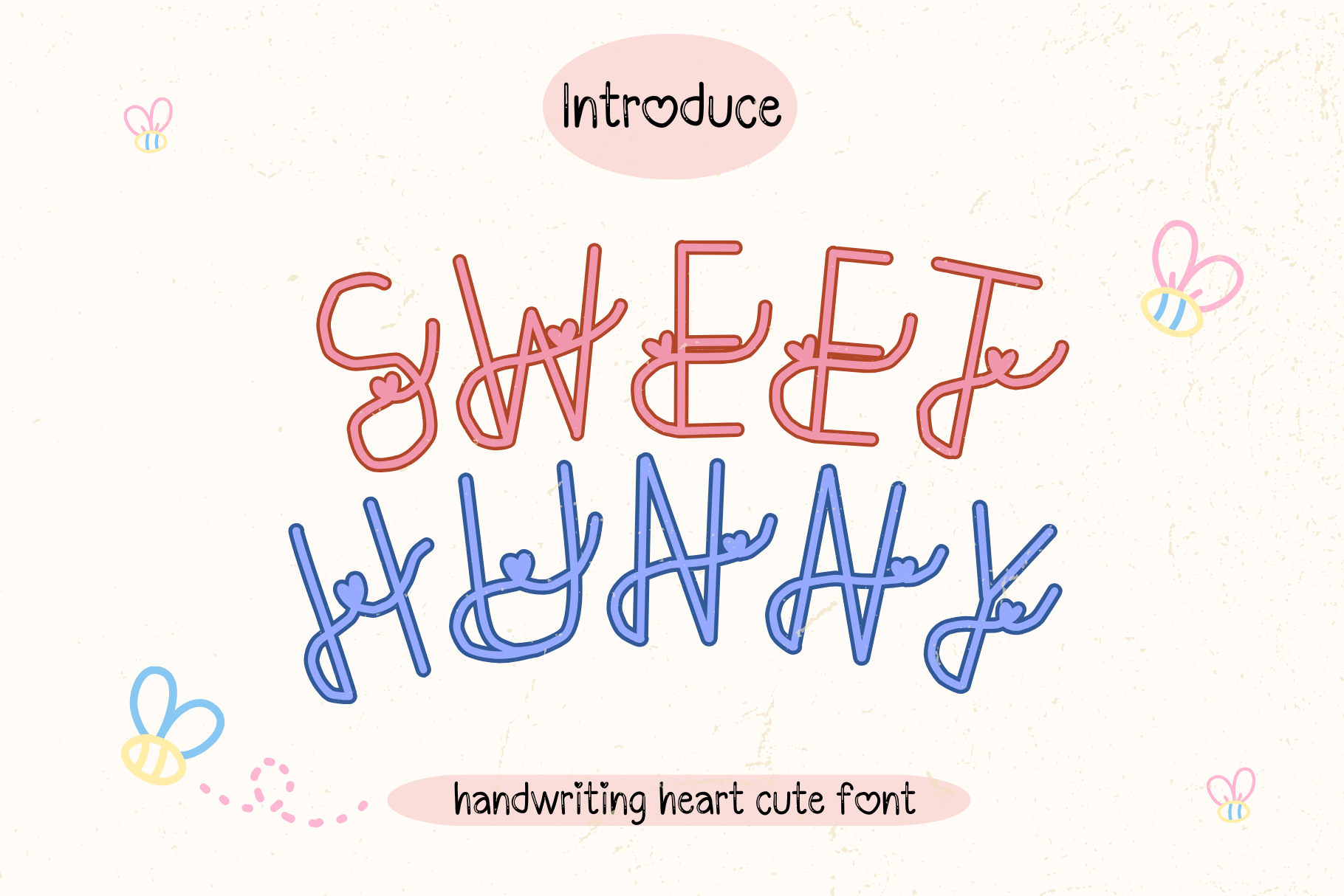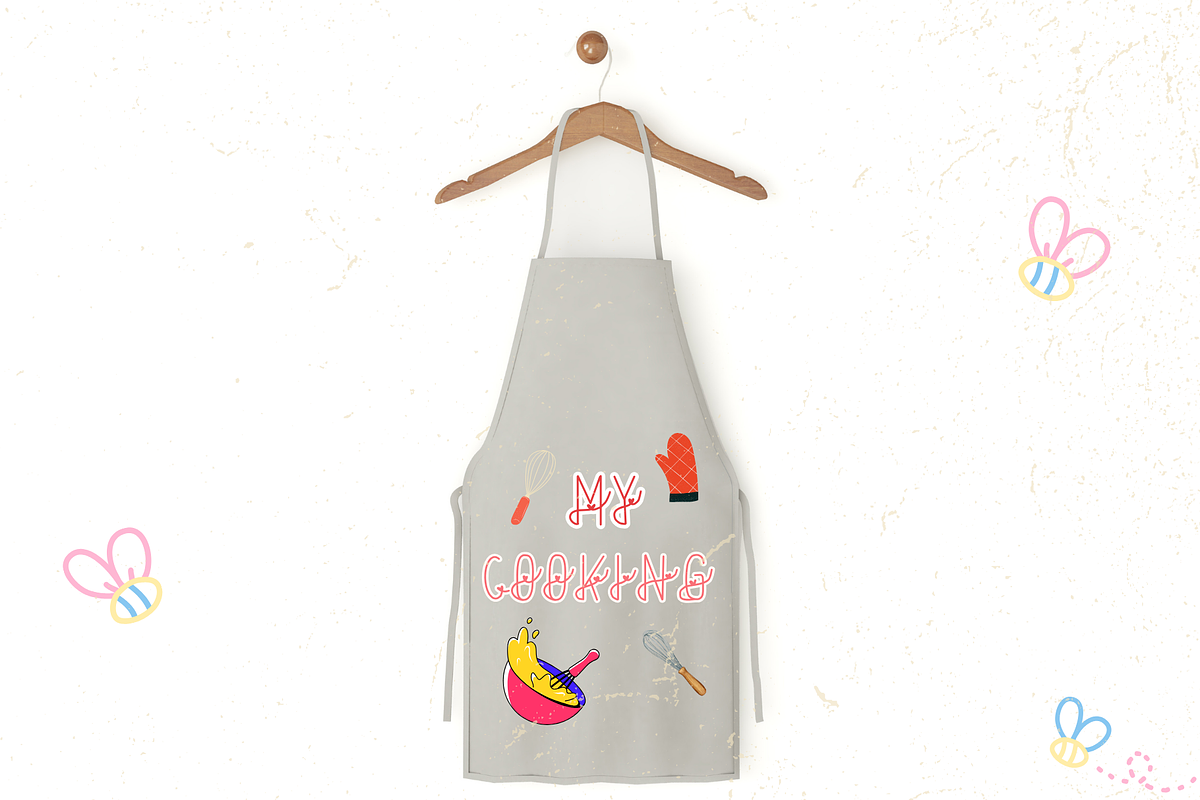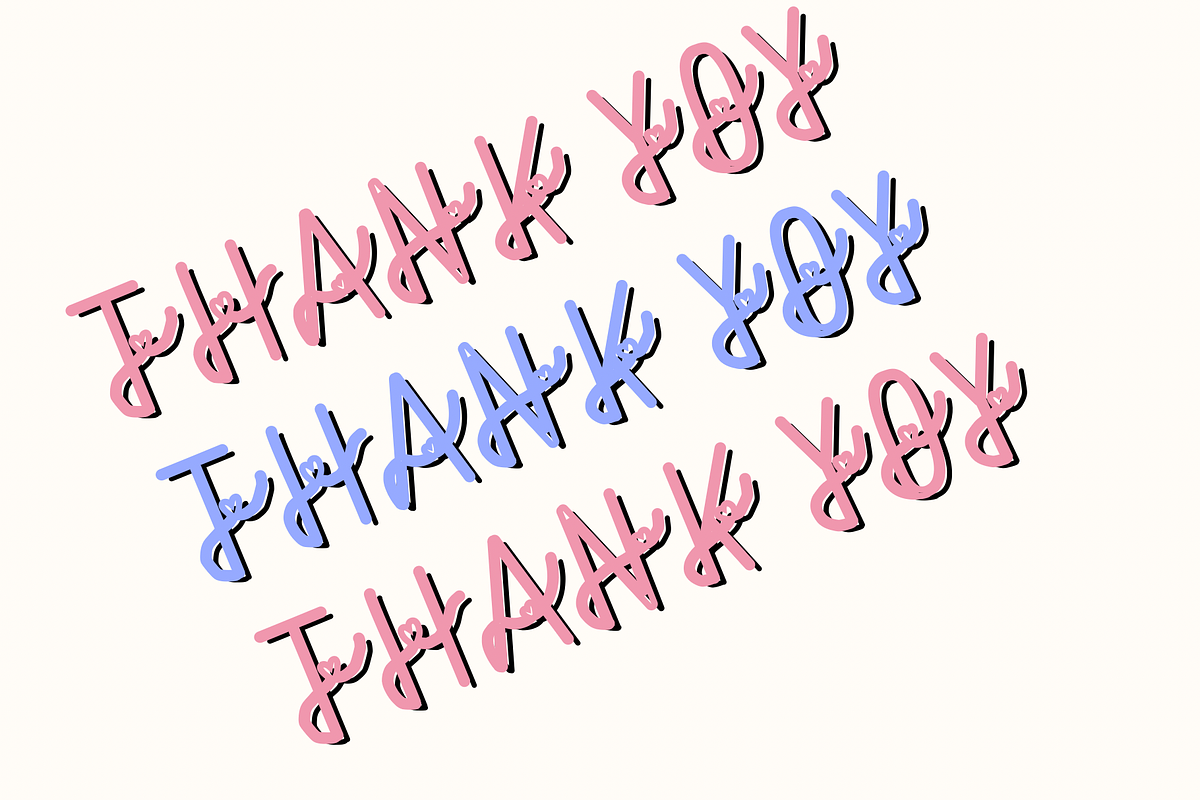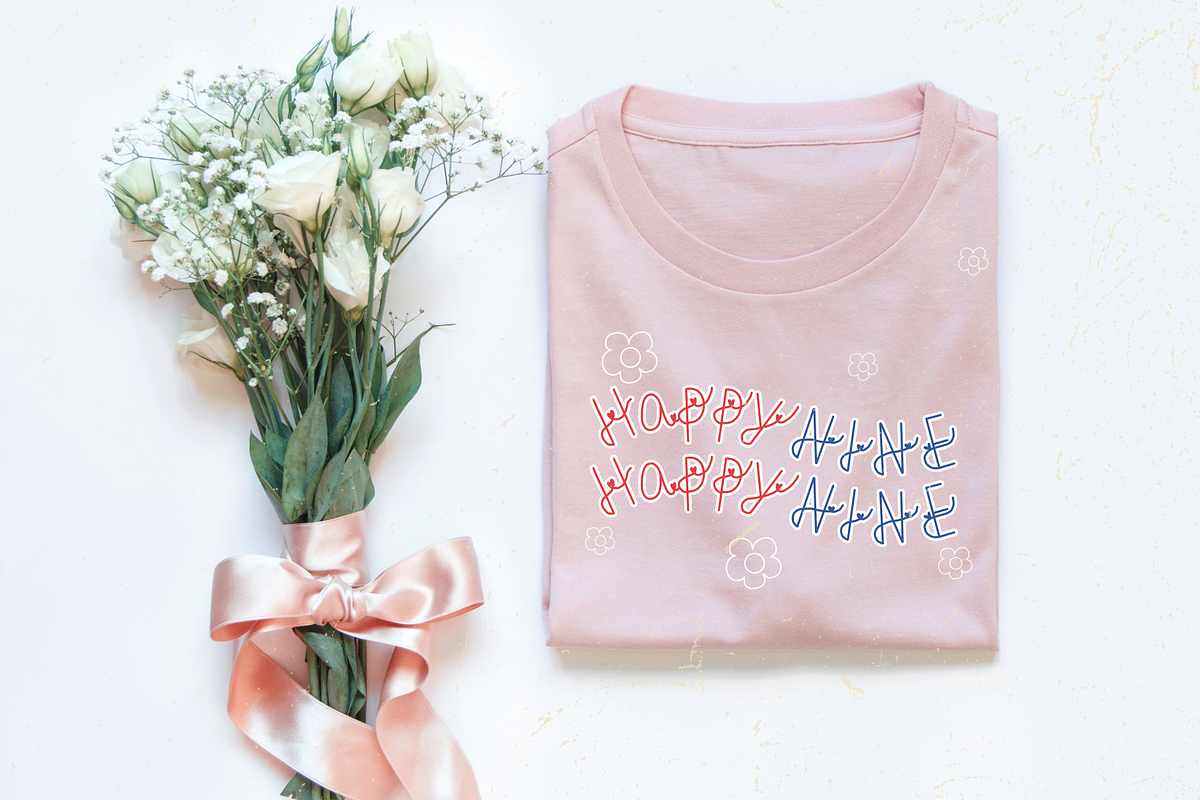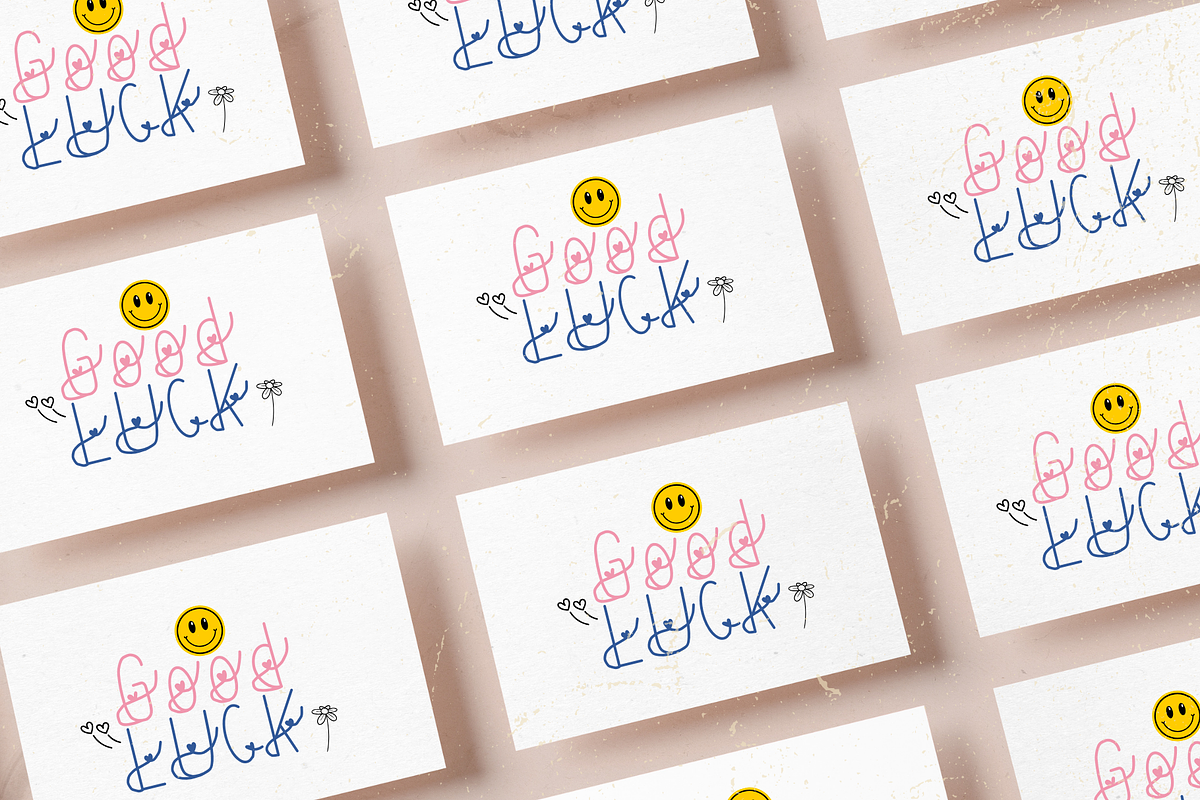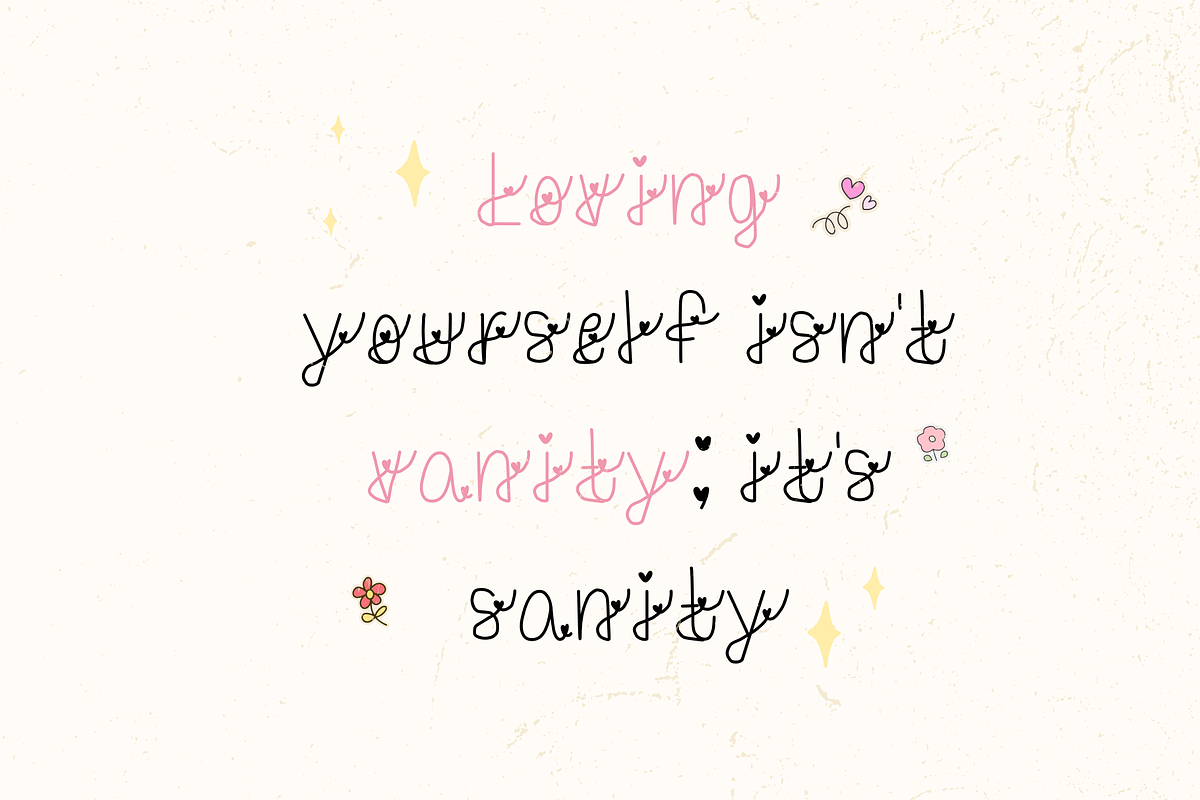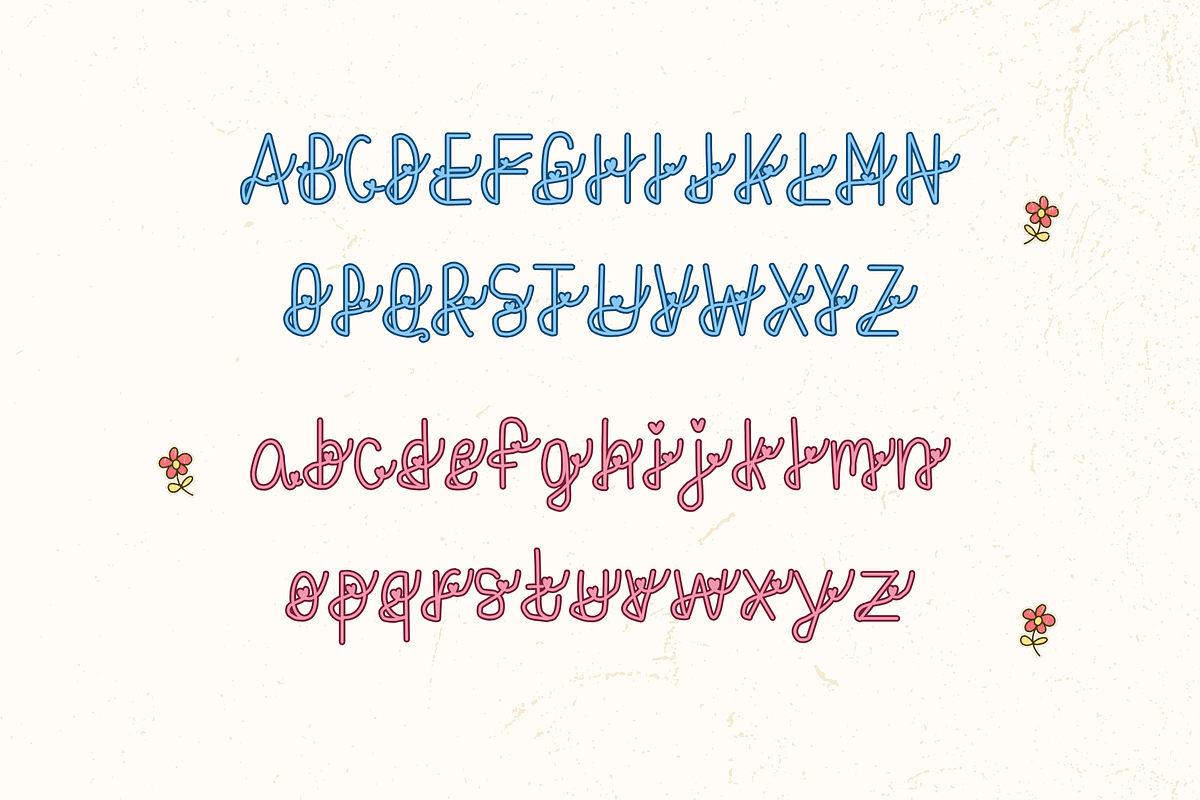
Sweet hunny font
Sweet hunny handwriting cute font designed with a heart theme, evoking feelings of love. It's suitable for a variety of design projects, whether it's patterns for clothing, hats, bags, stickers, and more. You can use it to design your work that truly reflects your personality, making the design process even more enjoyable.